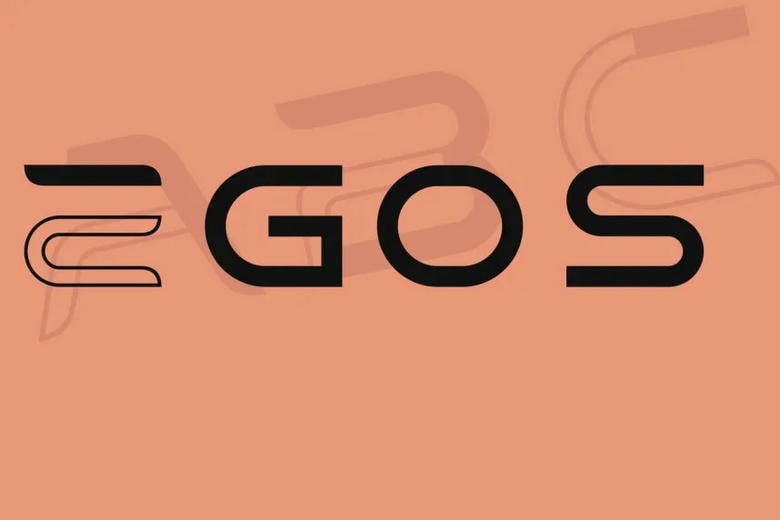
EGOS Font
EGOS is a display font that takes inspiration from advanced technology, cyberpunk style, and sci-fi interfaces. Its clean geometric shapes and sharp details give each letter a modern, high-tech look, while still being easy to read.
If you are working on a futuristic brand, an esports logo, an electronic music poster, or a sci-fi project, EGOS brings a bold, tech-inspired style that stands out right away.
With its special Stylistic Alternates, you can try different character combinations to make each headline look unique, dynamic, and polished.
EGOS Futuristic Sci-Fi Display Font